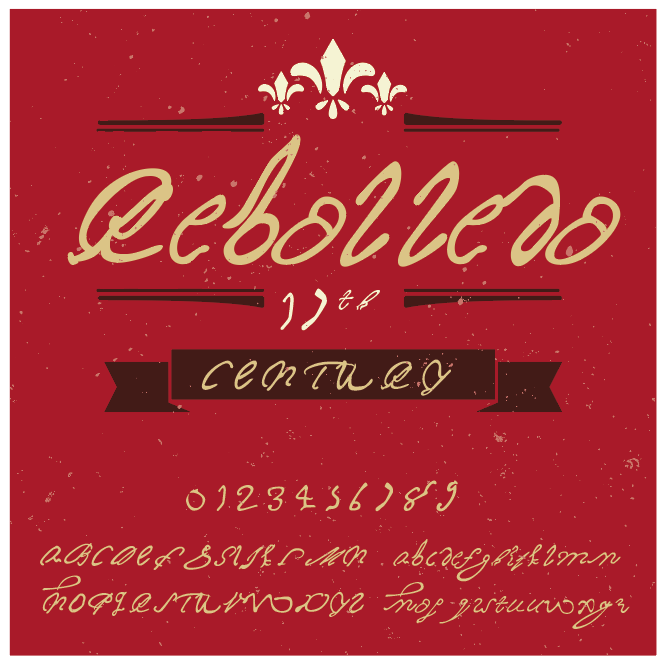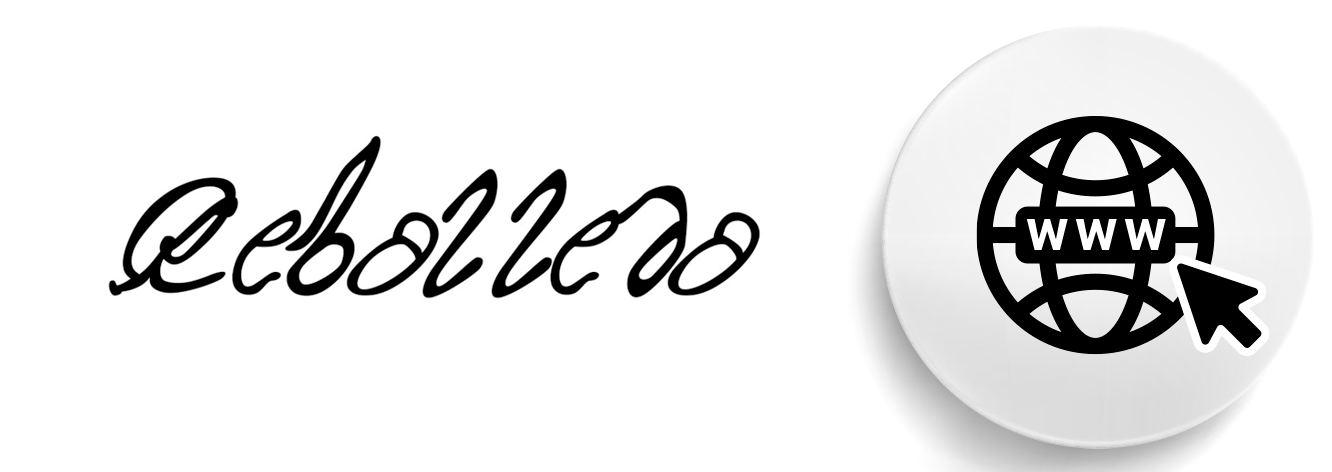
Rebolledo Web Font
Diego de Rebolledo served as governor of Spanish Florida between 1654 and 1659. A controversial figure, Rebolledo’s governorship was dominated by scandal, political infighting, and accusations of corruption and abuse. This font is inspired by one of the many reports Rebolledo sent to Spain to win royal favor. In it, he denies any wrongdoing, claiming that his accusers invented stories to discredit him and challenge his authority.
In his report, dated May 25, 1658, Rebolledo complains that he is “gravely offended” by the unfair accusations leveled against him, adding that the true achievements of his governorship have never reached His Majesty’s ears. Hmmmm….
The shape and size of the letters found in historical documents varied widely. As such, the spacing for these authentically historical fonts also fluctuates from style to style, with many of the letters extending beyond one or two lines. For best results, we recommend double spacing when using these fonts.